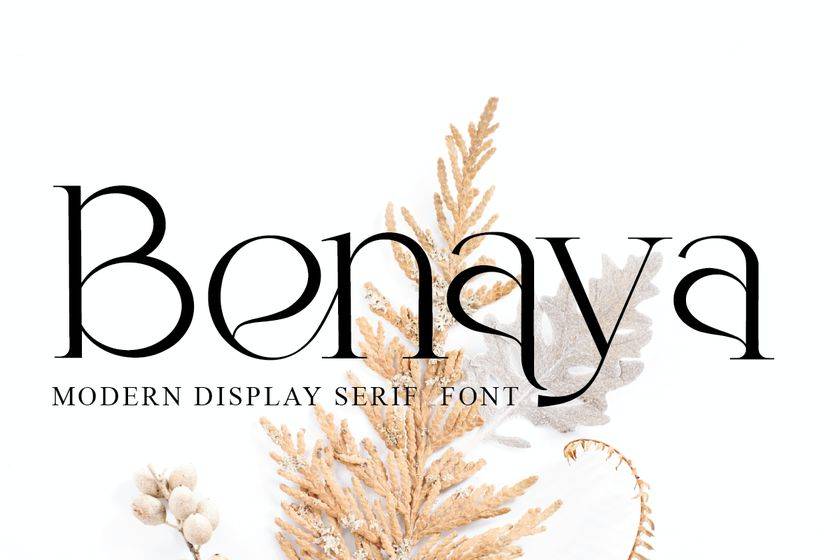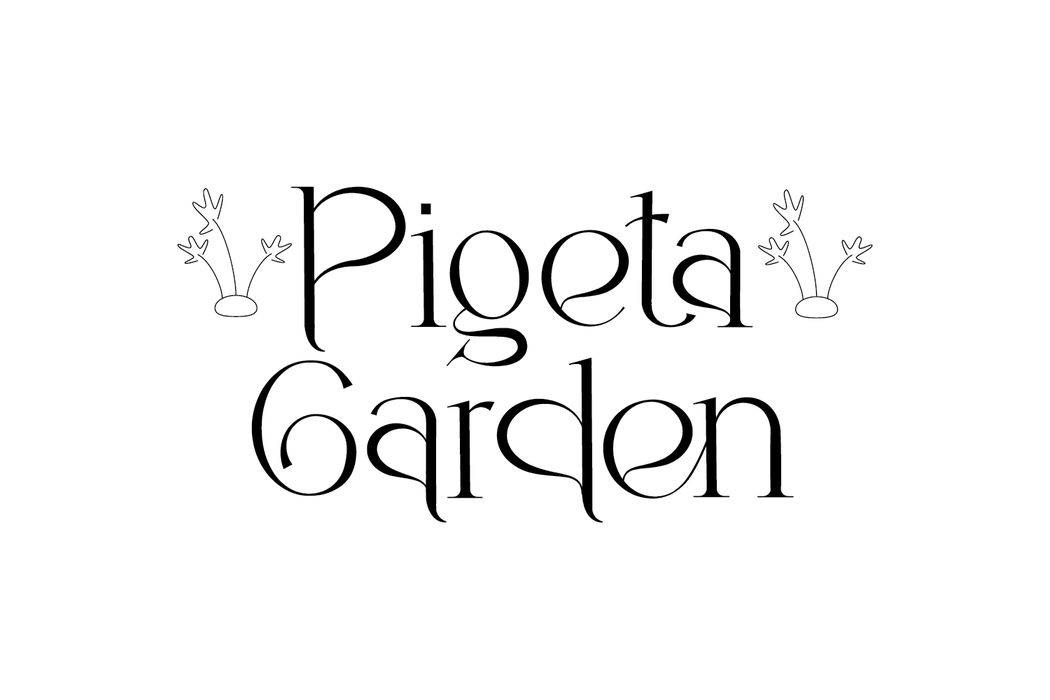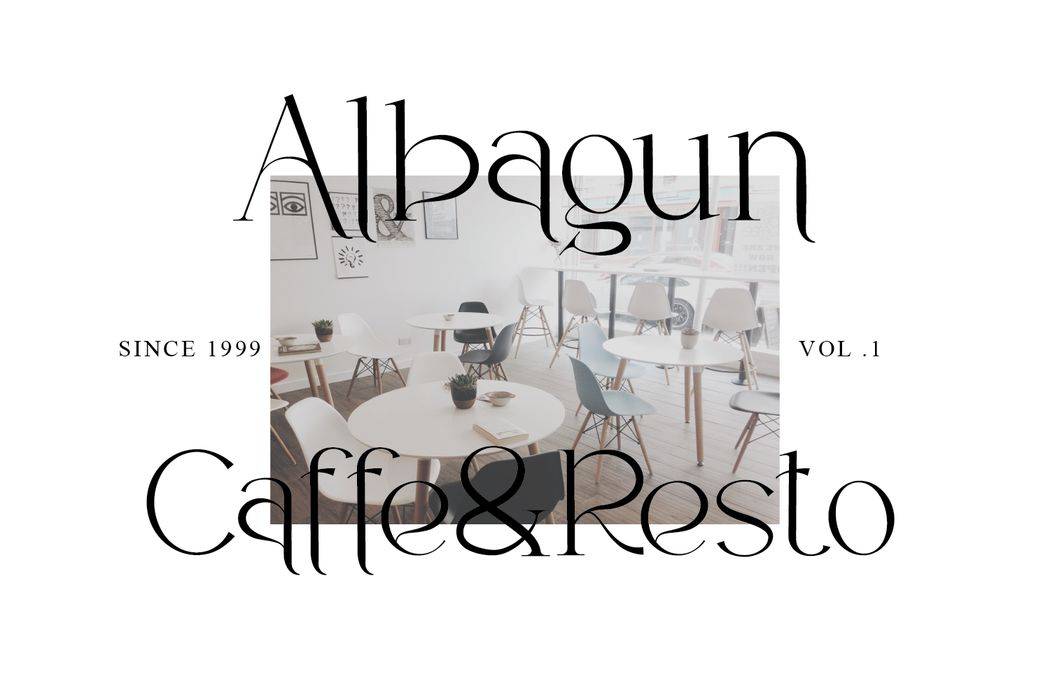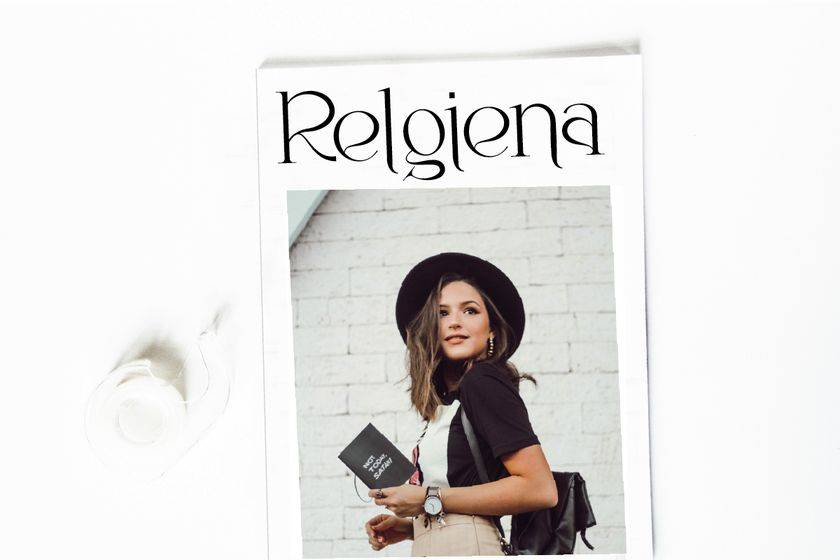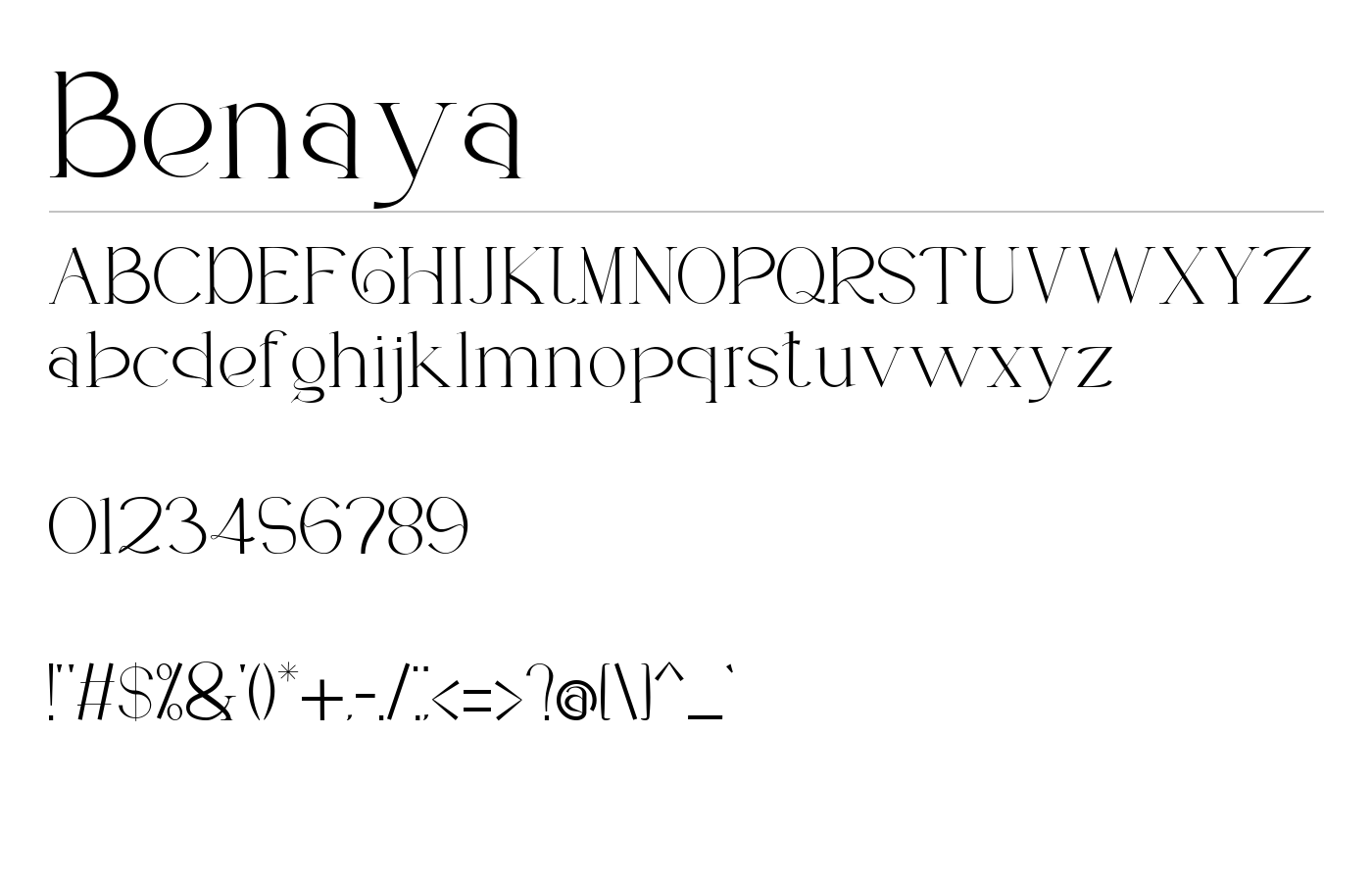
Benaya is a delicate serif font with a whimsical and elegant character, featuring thin, high-contrast strokes and unique curving details that give it a refined yet playful feel. Its narrow width and distinctive letterforms make it ideal for luxury branding, fashion headlines, and creative editorial projects where a sophisticated, artistic touch is desired.
Benaya Font
About Benaya Font